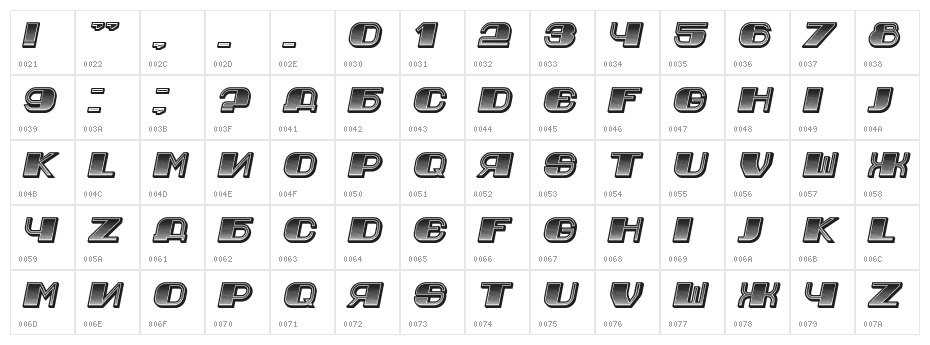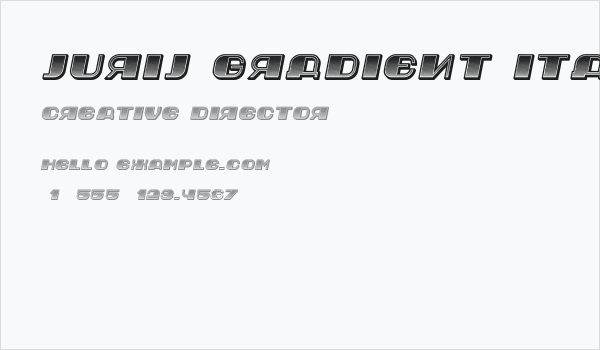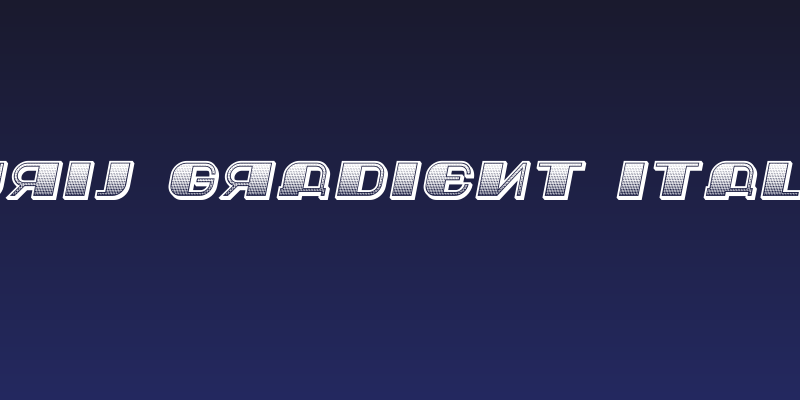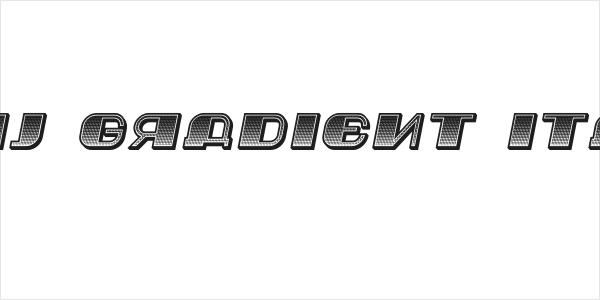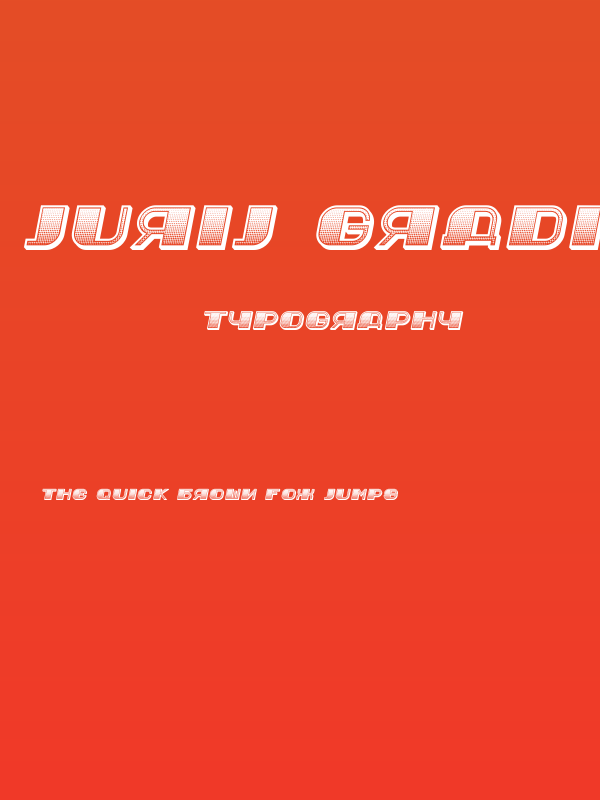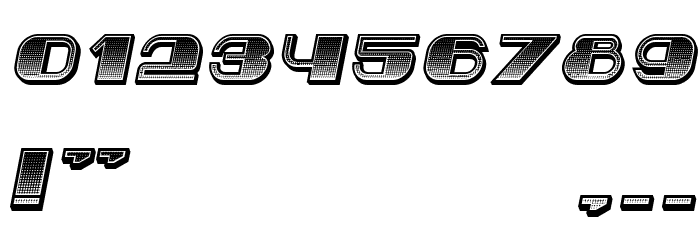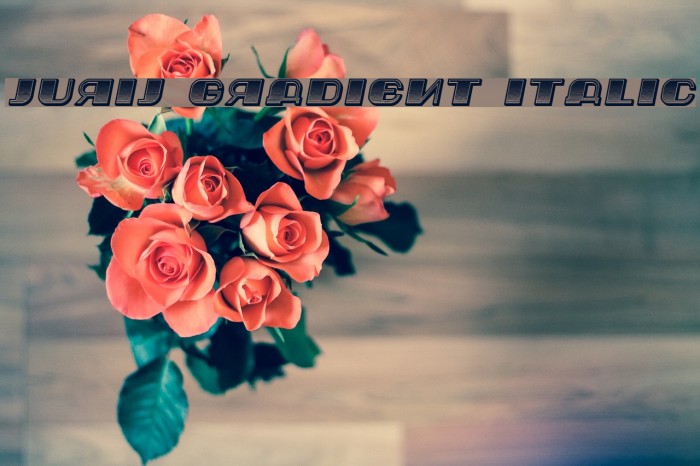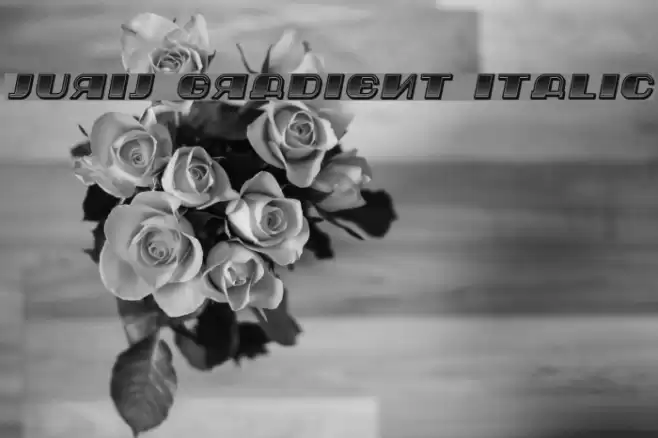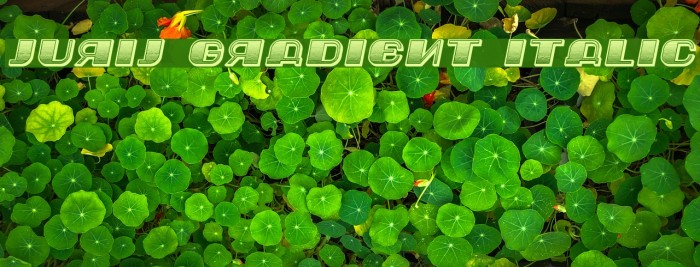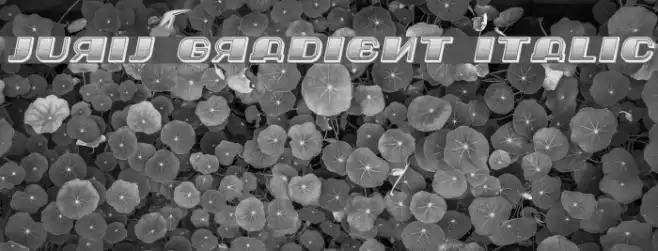
Jurij Gradient Italic Font
Jurij Gradient Italic Description
This font features a bold and dynamic design with a distinct gradient effect that gives each character a sense of depth and movement. The italicized style adds a forward-leaning energy, making it ideal for attention-grabbing headlines or titles. The characters are outlined with a solid border, enhancing their visibility and impact. This font combines a modern aesthetic with a playful twist, making it suitable for creative projects that require a unique and eye-catching typeface.
| Proposed Projects | Ideal for posters, logos, video game graphics, and any project needing a bold, modern touch. |